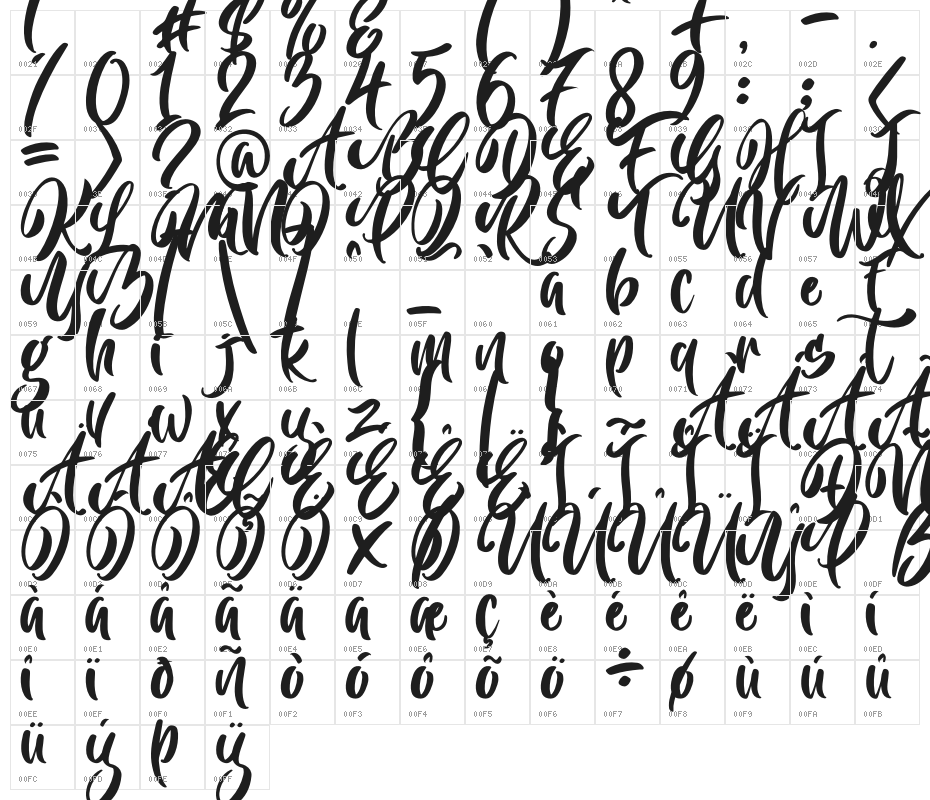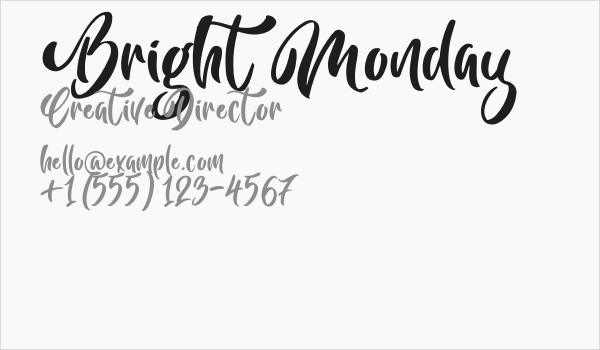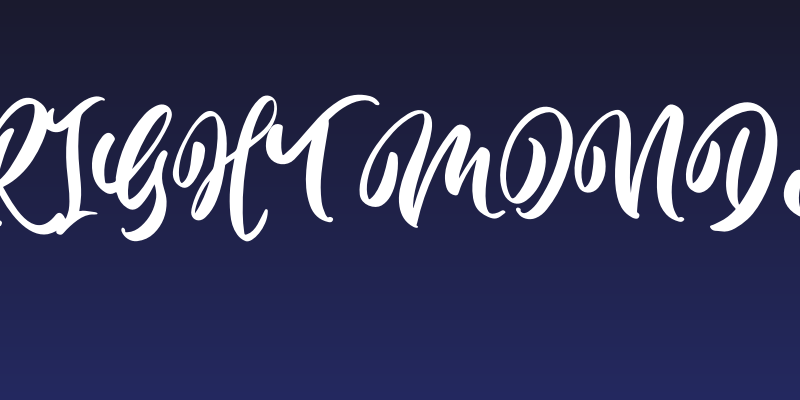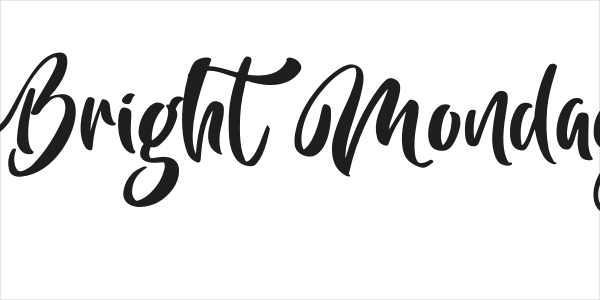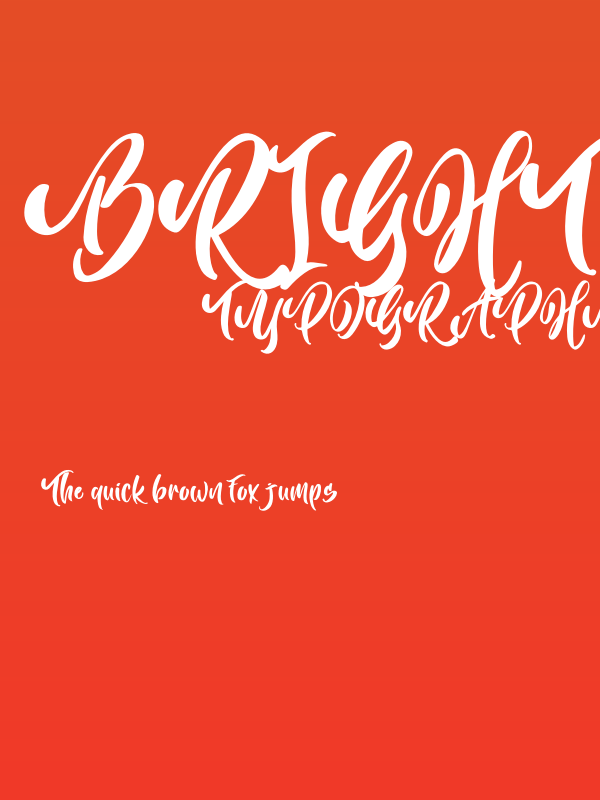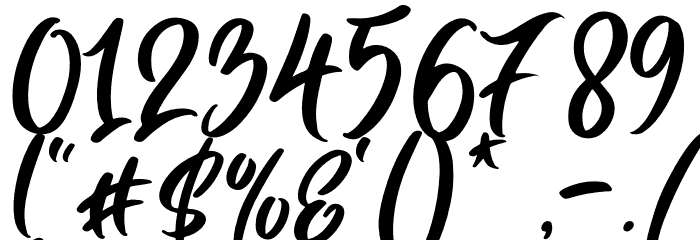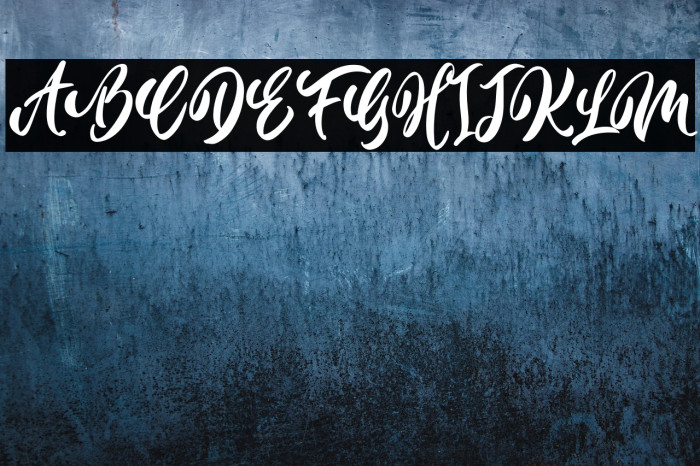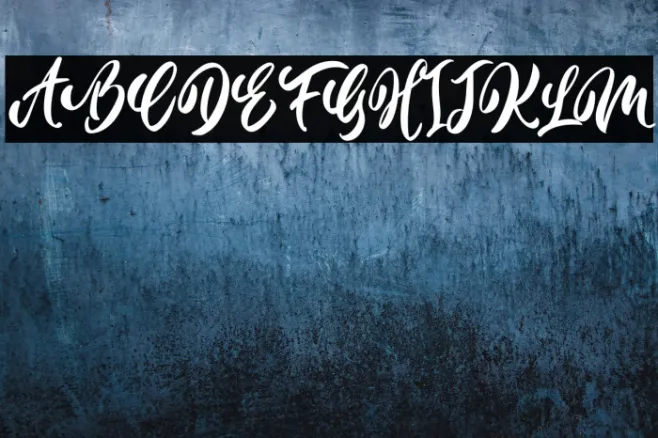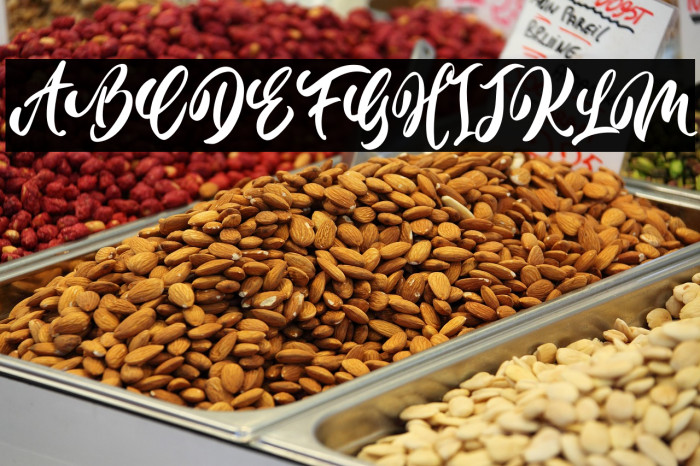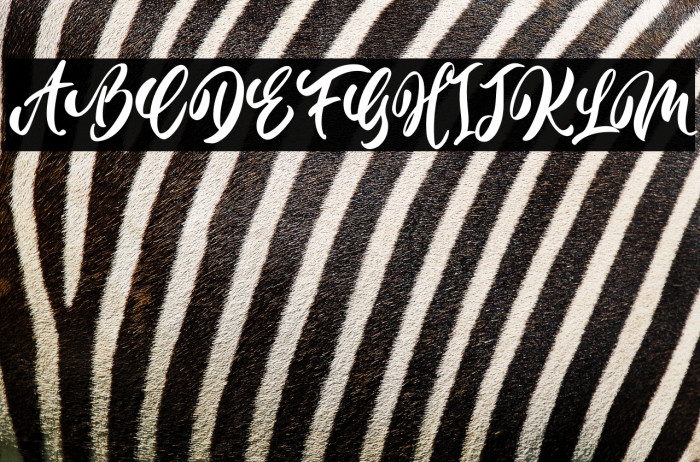
Bright Monday Font
Bright Monday Description
This font exudes a lively and dynamic energy, characterized by its bold and fluid script style. The letters are intricately connected, with sweeping curves and flourishes that give it a sense of movement and elegance. The uppercase letters are particularly expressive, with exaggerated loops and swashes, while the lowercase letters maintain a consistent flow. The numbers and special characters are equally stylized, ensuring a cohesive look across all text. This font is perfect for projects that require a personal touch or a sense of creativity and flair.
| Proposed Projects | Ideal for wedding invitations, branding, greeting cards, and artistic posters. |